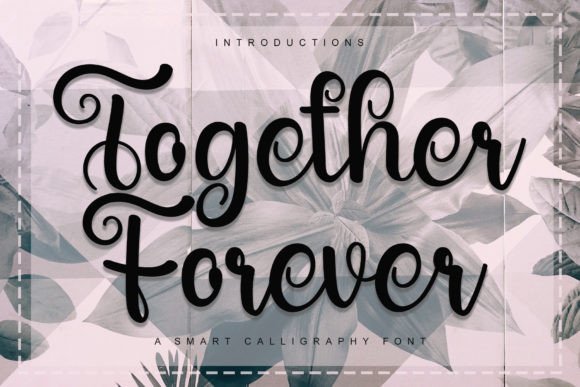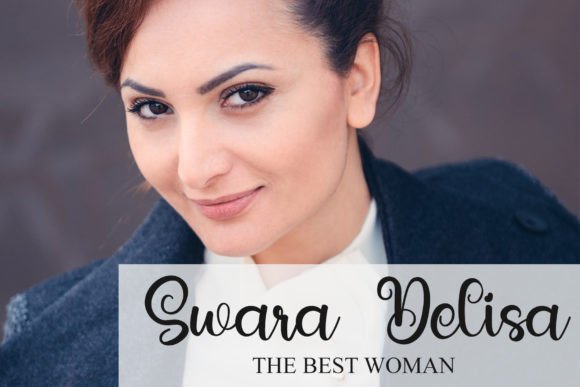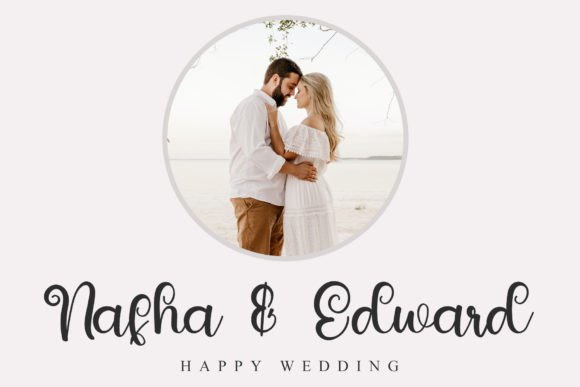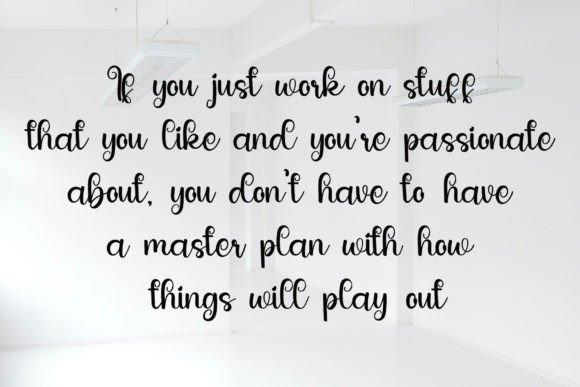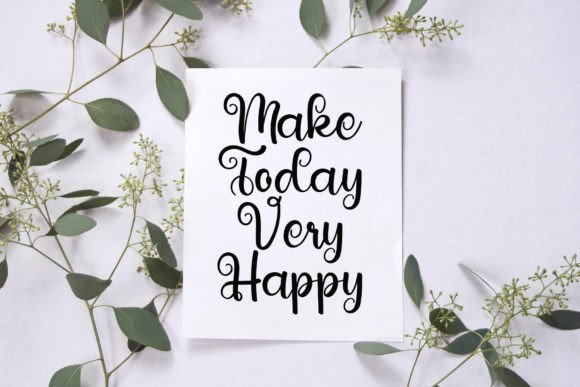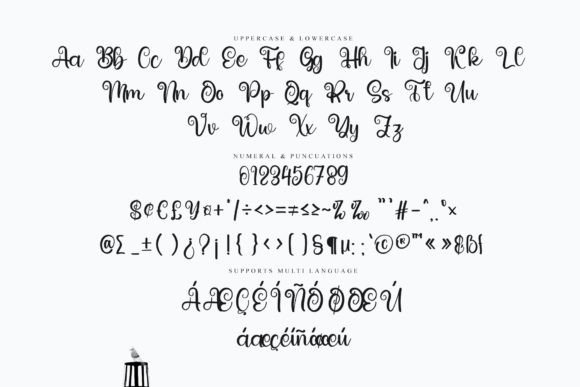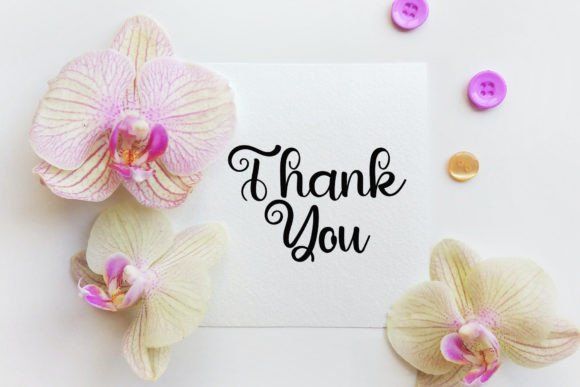
Together Forever Font
About Together Forever Font
“Together Forever” is described as a modern and friendly handwritten font that has been meticulously crafted with attention to detail. Regardless of the subject or project, this font has the potential to become a valuable asset in your font library, as it excels in enhancing a wide range of creations.
The charm of “Together Forever” lies in its ability to exude a contemporary and friendly vibe, making it suitable for various design contexts. Whether you’re working on branding, social media graphics, posters, or any creative endeavor, this font offers a versatile and visually engaging option. It allows you to convey your message with a modern and friendly touch.
As you incorporate “Together Forever” into your creative process, you’ll discover its remarkable ability to enhance your work, making it visually appealing and memorable. This font becomes a reliable and versatile tool for designers looking to create designs that resonate with a contemporary and friendly appeal.
In summary, “Together Forever” is a modern and friendly handwritten font that excels in adding a welcoming and contemporary touch to a wide variety of design projects. Its versatility and meticulous craftsmanship make it a valuable choice for designers aiming to create visually appealing and engaging work. Let “Together Forever” be your creative companion, and watch how it enhances your designs, ensuring they shine with a modern and friendly essence, enhancing any creation.